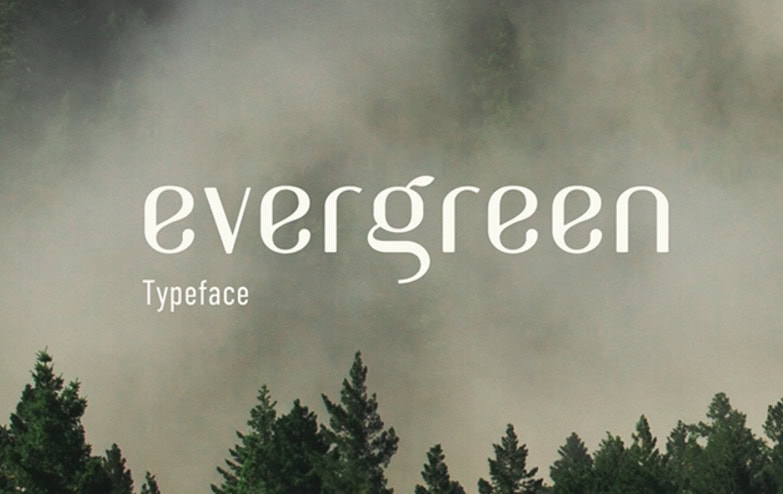
evergreen
Explore the Timeless Beauty of Evergreen Font
Evergreen Font, created by renowned type designer Alex Greene in 2022, embodies the essence of nature with its organic forms and clean lines. This versatile typeface is ideal for web design, print materials, branding, and even logo creation. Its unique style brings a fresh, contemporary feel to any project while maintaining readability and elegance.
Features and Formats of Evergreen Font
The Inspiration Behind Evergreen Font
Inspired by the lush landscapes and vibrant colors of nature, Evergreen Font was designed to evoke feelings of tranquility and harmony. Alex Greene’s dedication to quality craftsmanship ensures that every glyph is meticulously crafted, making this font stand out in the crowded design marketplace.
Ideal Uses for Evergreen Font
Evergreen Font is perfect for a variety of applications, including eco-friendly product branding, organic food packaging, environmental organization logos, and personal projects like invites and flyers. Its distinct style makes it an excellent choice for conveying messages related to sustainability and natural beauty.